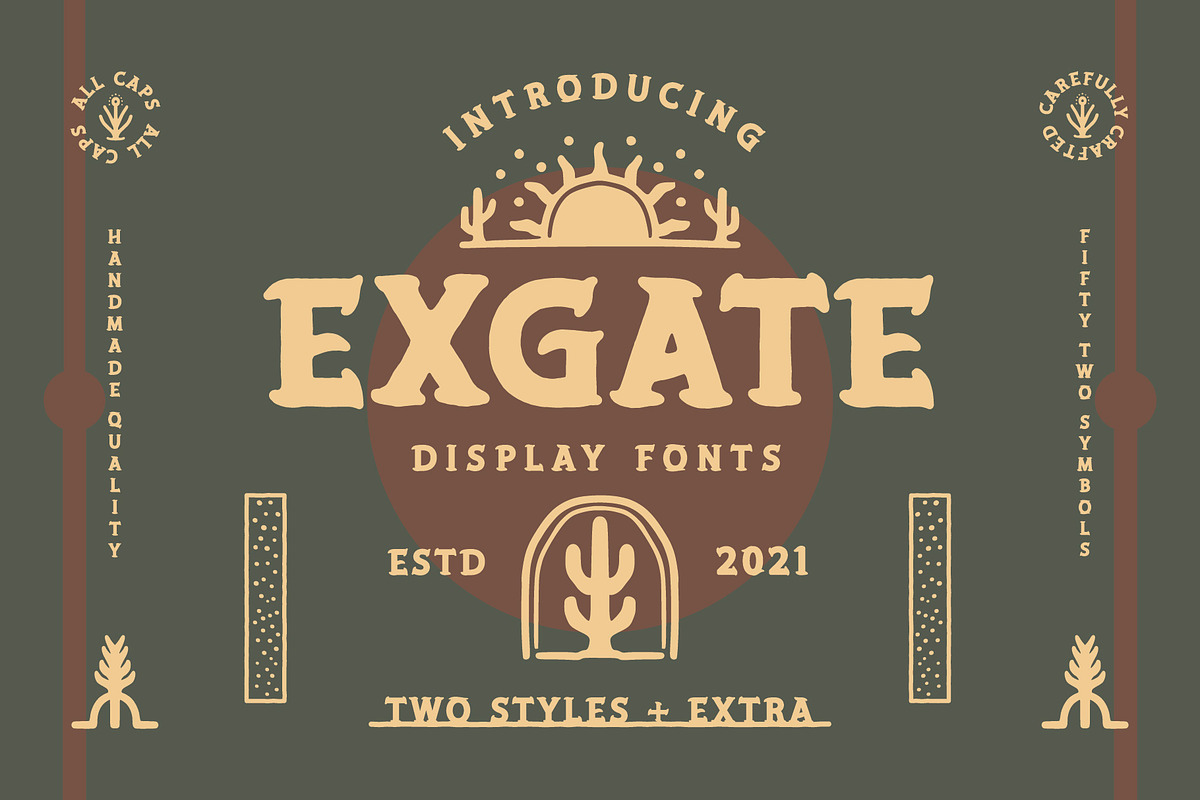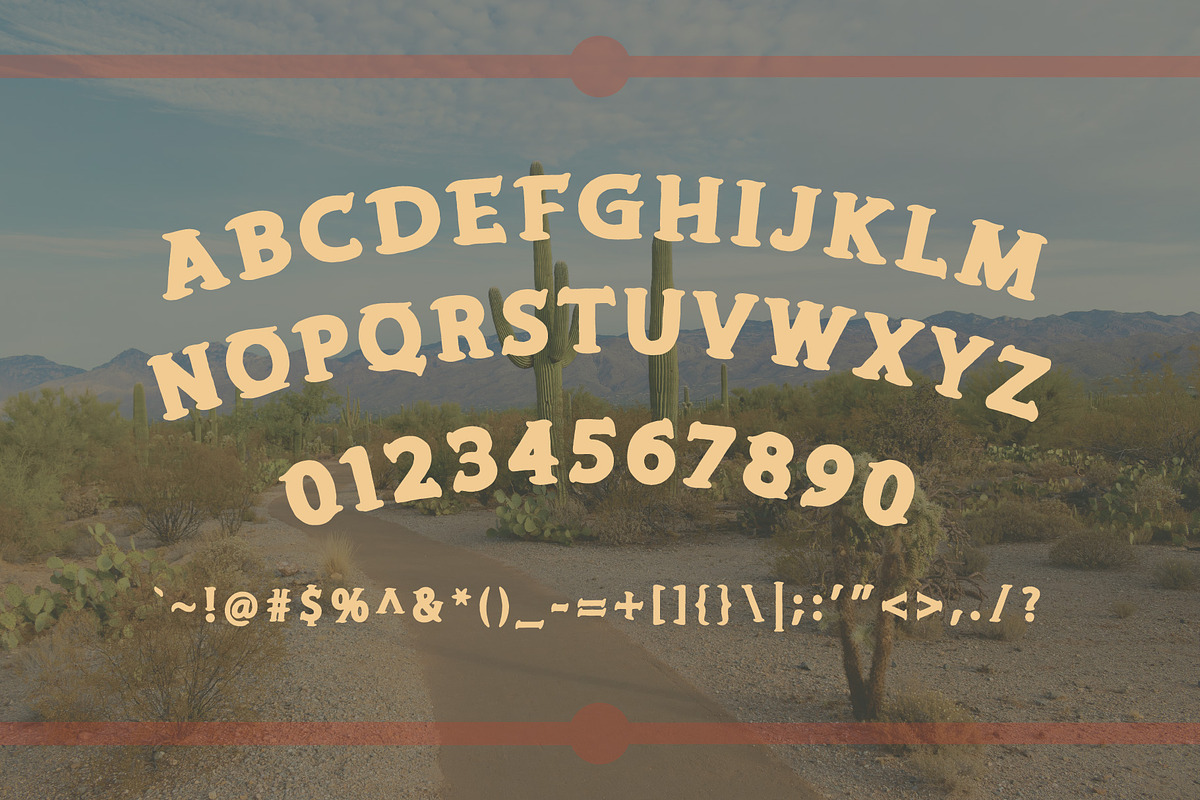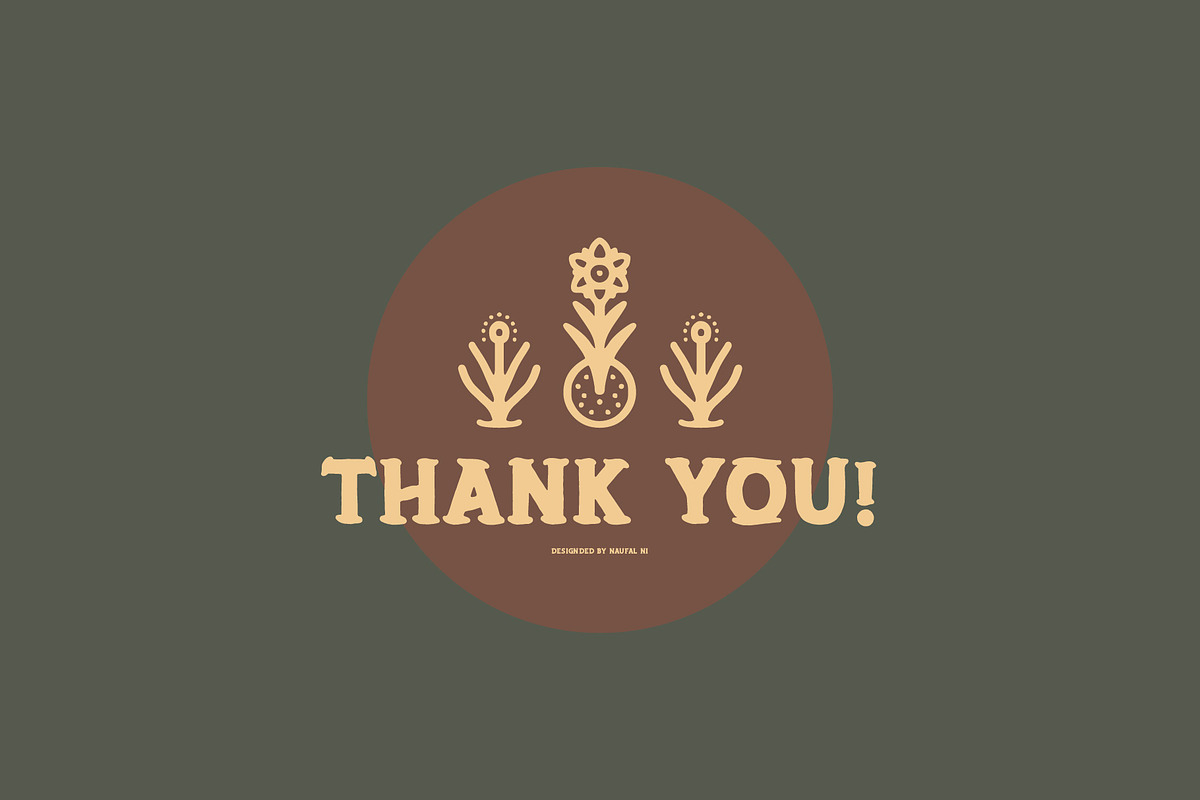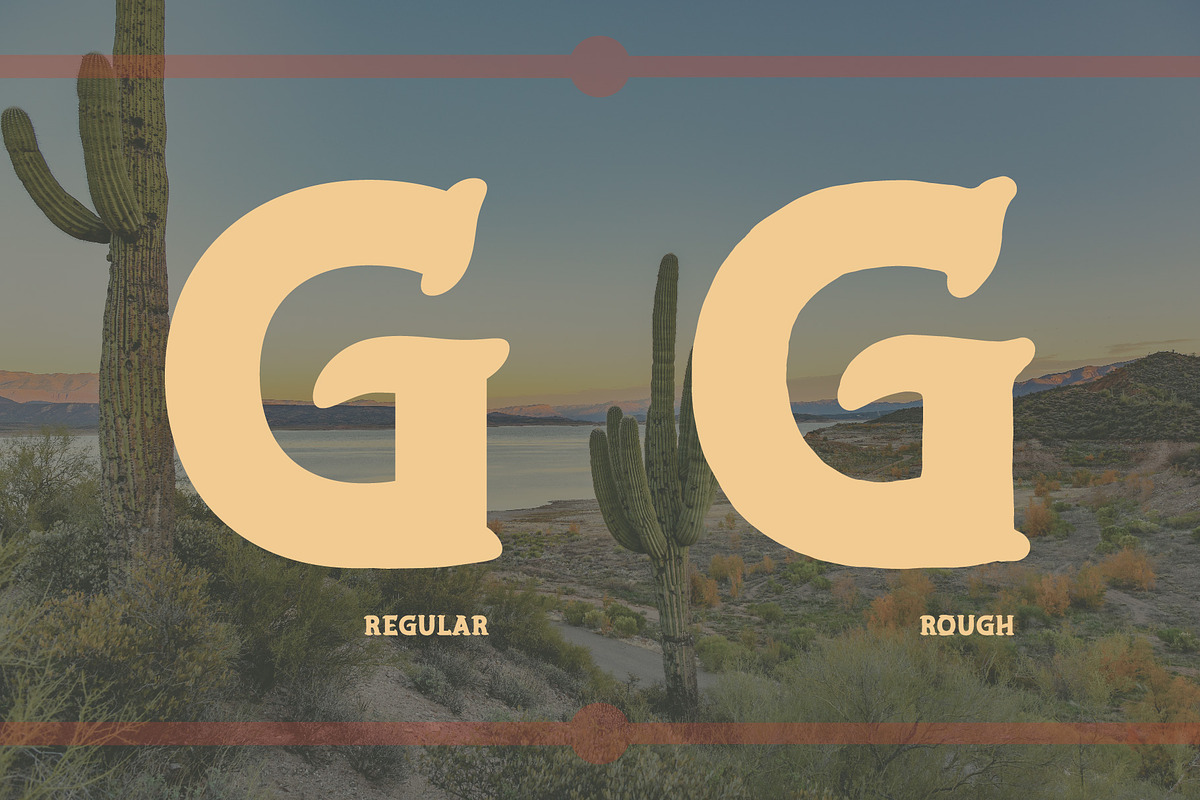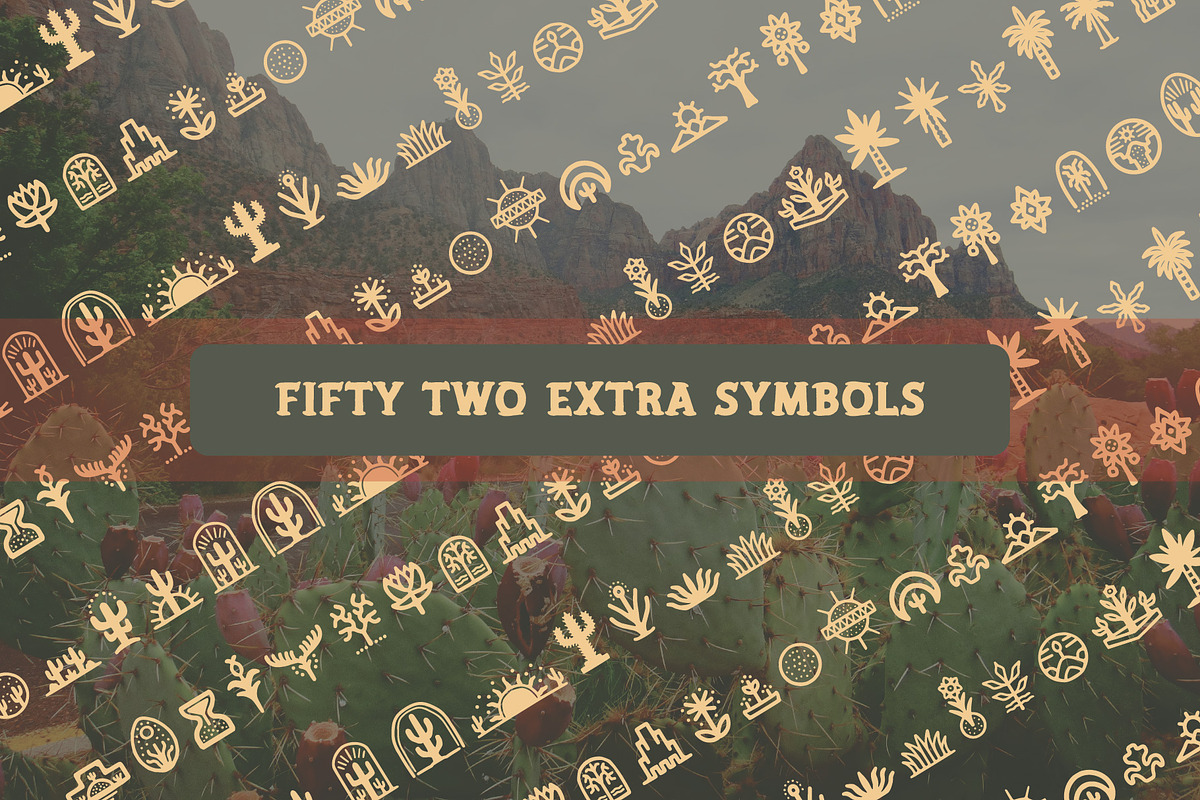
EXGATE + Extra
EXGATE is a serif display font, and is inspired by desert landscape,, with two kinds of styles, namely regular and rough. This font has smooth and rough edges, it comes with all caps. You will get 52 desert symbols.
EXGATE perfect for making logo designs, badges, packaging, posters, t-shirt designs and more. fonts give a aesthetics desert feel to your design. Hope you like this font!